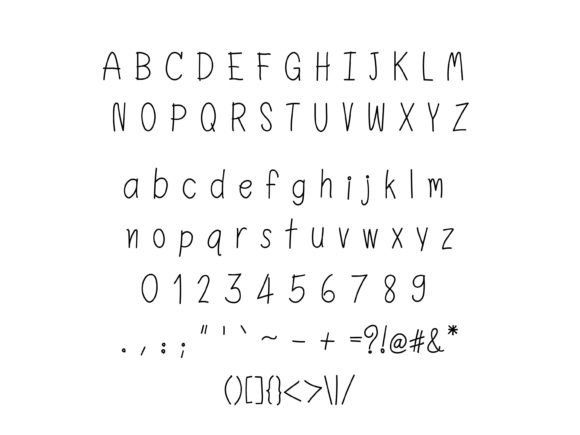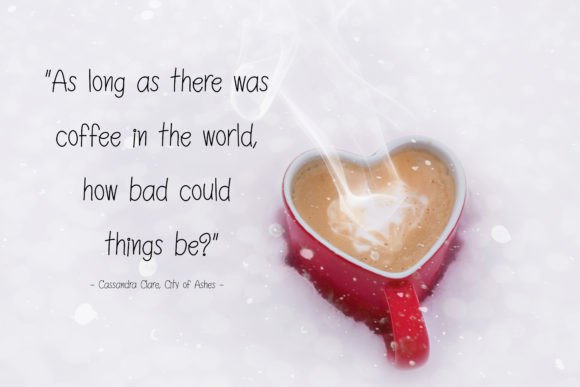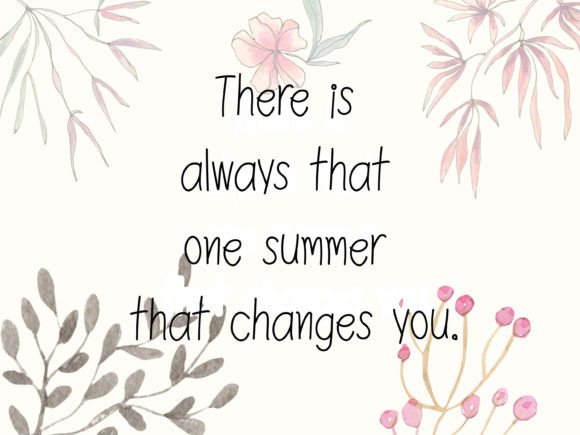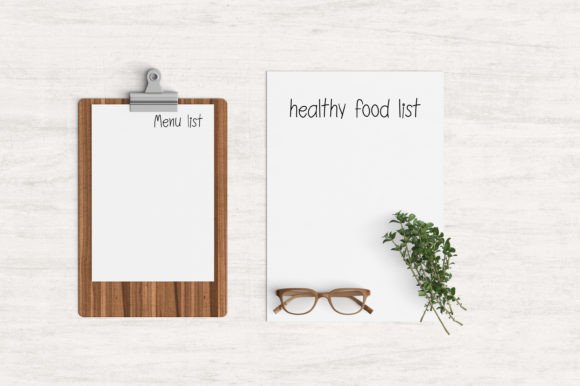
Light Twigs Font
**”Light Twigs”** is a lightweight, soothing, and addictive handwritten font that adds a touch of elegance and beauty to a variety of design concepts. This gentle font’s graceful appearance makes it a captivating choice for various design ideas, enhancing their overall aesthetics.
With its delicate and soothing qualities, **”Light Twigs”** can be used to create gorgeous designs across a wide range of applications. Its lightweight and graceful appearance adds a sense of refinement and authenticity to your work.
Whether you’re working on invitations, greeting cards, social media graphics, posters, or any other design project, **”Light Twigs”** can elevate the visual appeal of your creations. It enhances the beauty and elegance of your text, making it a captivating element within your designs.
For crafters and DIY enthusiasts, this font can be a valuable asset in adding a touch of sophistication to your creative projects. Its addictive and graceful style complements the artistic spirit of crafting, enhancing the overall quality of your handmade goods and creations.
In summary, **”Light Twigs”** is a handwritten font that brings a sense of elegance and beauty to a variety of design ideas. Its lightweight, soothing, and addictive qualities make it a valuable resource for designers and crafters looking to create gorgeous and captivating designs with a touch of refinement.